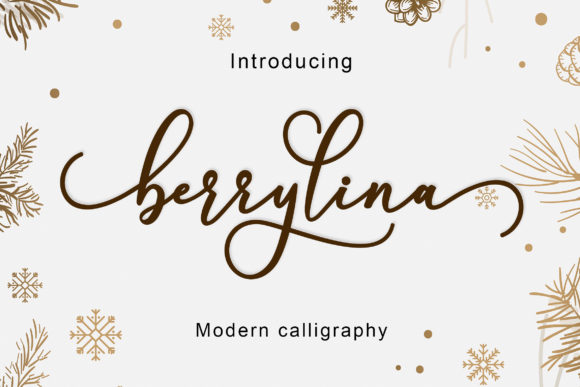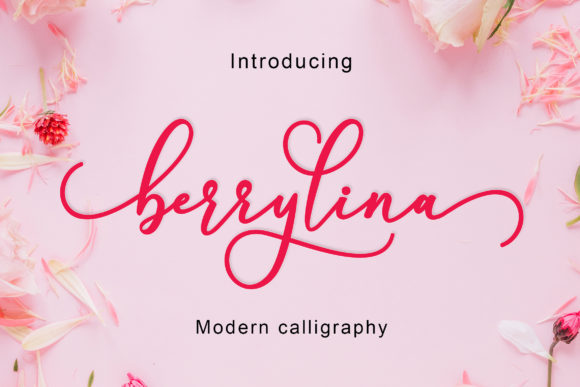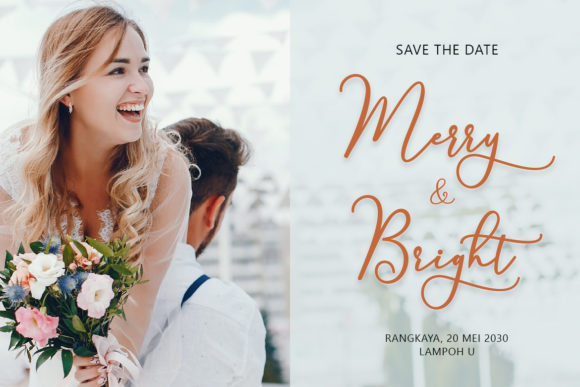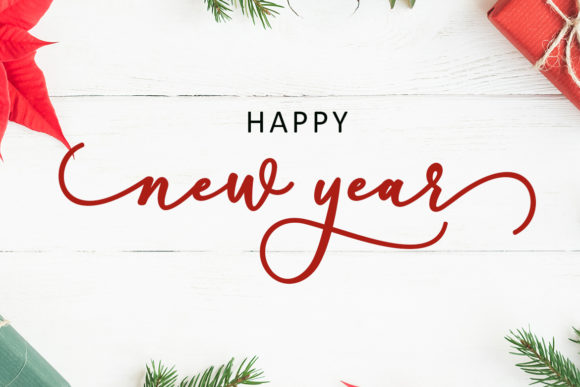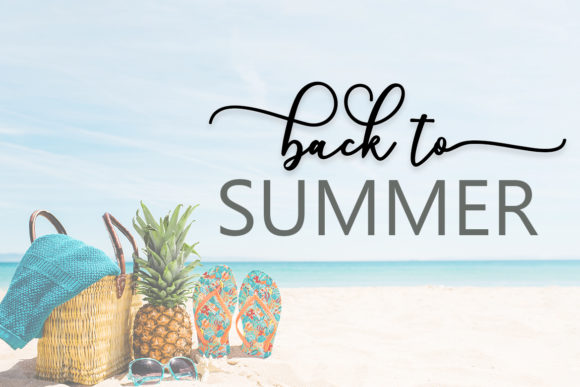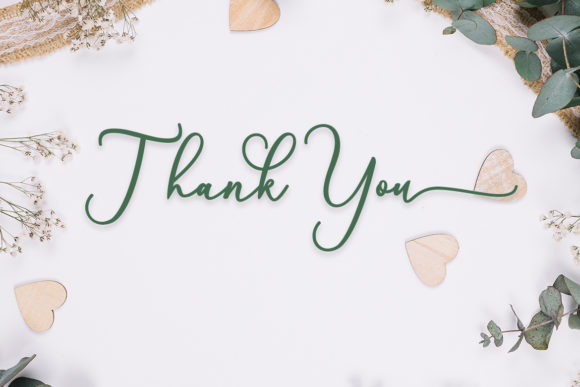
HomeScript FontsBerrylina Script Font Script Fonts Berrylina Script Font FacebookXPinterestWhatsApp Berrylina Script Font Poster 2 Berrylina Script Font Poster 3 Berrylina Script Font Poster 4 Berrylina Script Font Poster 5 Berrylina Script Font Poster 6 About Berrylina Script Font Berrylina is an extraordinary script font featuring wonderfully dynamic swashes. DOWNLOAD ON CREATIVE FABRICAThis font is sold and delivered by Creative Fabrica. Font Canyon may earn a commission if you buy through this link. People also explored Crishmas Memories Font Cholaros Font Boho Font Crazy Love Font Batherly Font Charcoal Marble Bella Canvas 3005 V Neck Eisha Script Font Monosketch Soul Signature Font 314 0 TagsBerrylina Script Font Previous articleAlimandi FontNext articleAnastasia Font LEAVE A REPLY Cancel reply Comment: Please enter your comment! Name:* Please enter your name here Email:* You have entered an incorrect email address! Please enter your email address here Website: Save my name, email, and website in this browser for the next time I comment. Personal Use Free The Quick Personal Use Free Read more about this font Farmhouse Christmas Personal Use Free Read more about this font Browie Personal Use Free Read more about this font Tanpax Personal Use Free Read more about this font BLOG Where to Buy American Fonts Online in 2024 Where to Buy American Fonts Online: The Ultimate Guide for 2024 Looking for the perfect American font to elevate your design projects? You're in the... Top 7 Google Fonts Alternatives for Faster and Privacy-Friendly Web Design (2025) Best Fonts for T-Shirt Design – Top 2025 Picks 5 Fonts That Will Dominate Design Trends in 2026